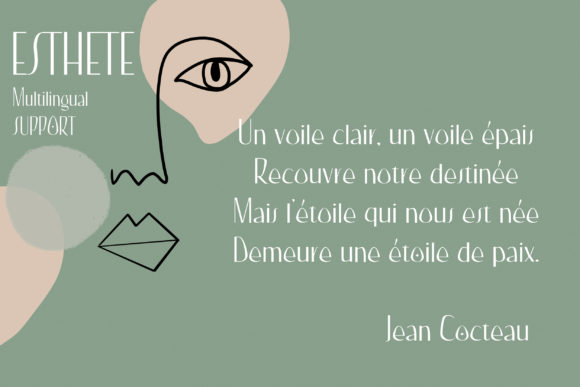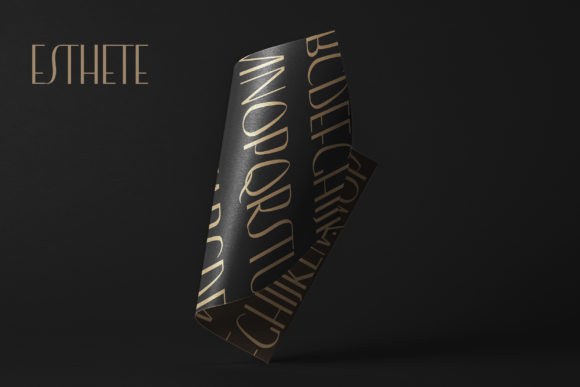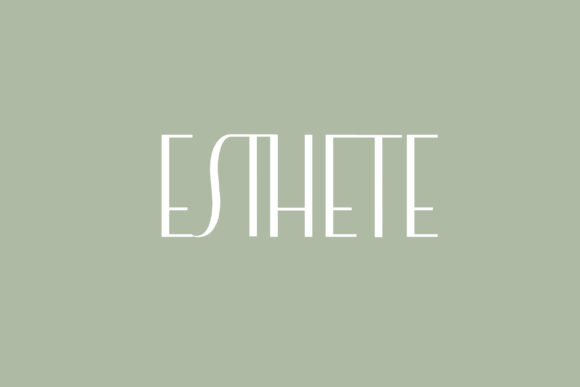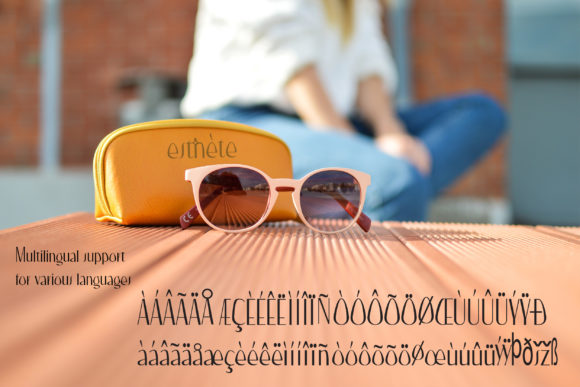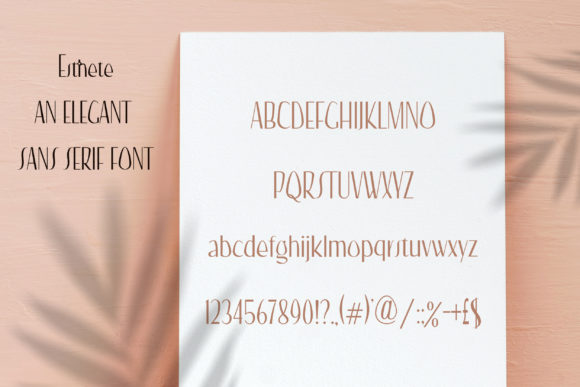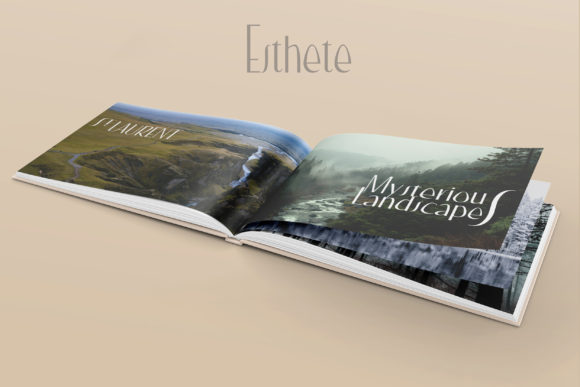
Introducing Esthete Font: Elevate Your Designs with Elegance
Are you a designer or crafter looking for a font that exudes elegance and sophistication? Look no further than Esthete Font, a stunning sans serif font that is sure to add a special touch to your designs. With its original and stylish look, Esthete Font is perfect for a variety of projects, from quotes and magazines to invitations and more.
The Characteristics of Esthete Font
Esthete Font is a sans serif font, which means it doesn’t have the small lines or flourishes that are commonly found at the ends of letters in serif fonts. This gives Esthete a clean and modern look that is perfect for designs where you want the text to be the focus. Despite its modern aesthetic, Esthete Font has a distinctly elegant feel that sets it apart from other sans serif fonts.
One of the standout features of Esthete Font is its unique and stylish design. Each letter has been carefully crafted to have a distinctive look that is both visually appealing and highly legible. Whether you’re using Esthete for a title or a block of text, you can be confident that it will look great and be easy to read.
Uses for Esthete Font
So, what can you use Esthete Font for? The possibilities are endless! Here are a few ideas to get you started:
- Quotes: Add a touch of elegance to your quote designs with Esthete Font. Its stylish look and high legibility make it perfect for showcasing inspirational quotes, famous sayings, and more.
- Magazines: Use Esthete Font as a headline or body font in your magazine designs. Its modern look and feel will add a touch of sophistication to any publication.
- Invitations: Make your invitations stand out with Esthete Font. Its elegant design is perfect for weddings, formal events, and other special occasions.
- Branding: Use Esthete Font as part of your brand identity to add a touch of elegance and sophistication. Its unique design will help your brand stand out from the crowd.
Why Choose Esthete Font?
So, why should you choose Esthete Font for your designs? Here are just a few reasons:
- Unique Design: Esthete Font has a unique and stylish design that will add a special touch to your designs.
- High Legibility: Esthete Font is highly legible, making it perfect for use in a variety of contexts, from body text to headlines.
- Elegant Feel: Esthete Font has a distinctly elegant feel that is perfect for designs where you want to convey sophistication and refinement.
- Versatile: Esthete Font is versatile and can be used in a wide range of designs, from digital projects to print materials.
Tips for Using Esthete Font
Here are a few tips for getting the most out of Esthete Font:
- Use it sparingly: Esthete Font is a statement font, so use it sparingly to add emphasis to your designs.
- Experiment with colors: Esthete Font looks great in a variety of colors, so don’t be afraid to experiment and find the perfect hue for your design.
- Pair it with other fonts: Esthete Font pairs well with a variety of other fonts, so feel free to get creative and find the perfect combination for your design.
In conclusion, Esthete Font is a stunning sans serif font that is sure to add a special touch to your designs. With its unique and stylish look, high legibility, and elegant feel, Esthete Font is perfect for a wide range of projects, from quotes and magazines to invitations and more. Whether you’re a designer or crafter, Esthete Font is a great choice for anyone looking to elevate their designs with elegance and sophistication.